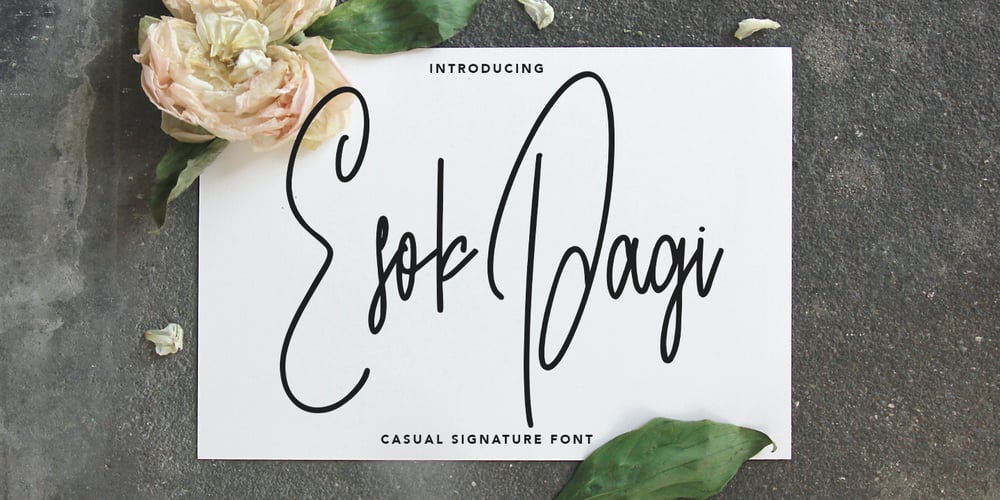
Esok Pagi Font Family was designed by Gilang Maulana and published by Maulana Creative. Esok Pagi contains 1 styles and family package options. Give your designs an authentic handcrafted feel. “Esok Pagi” is perfectly suited to signature, stationery, logo, typography quotes, magazine or book cover, website header, clothing, branding, packaging design and more.Thanks for use this font. MaulanaCreative